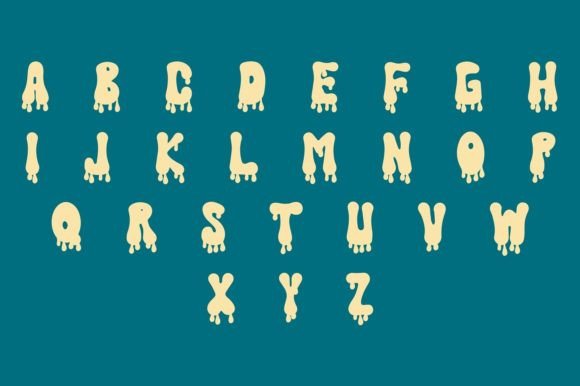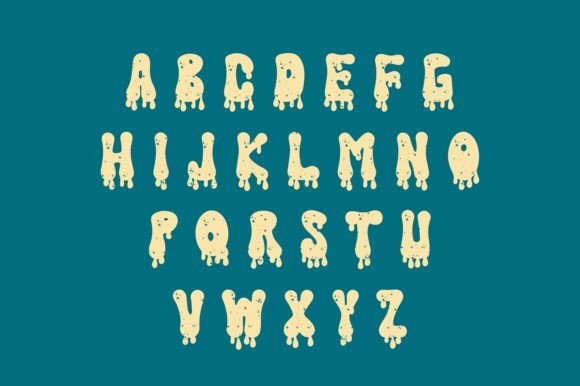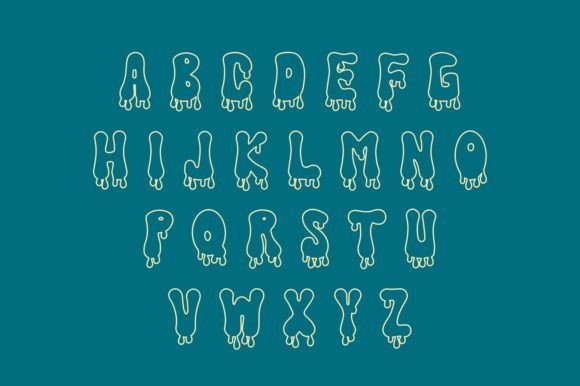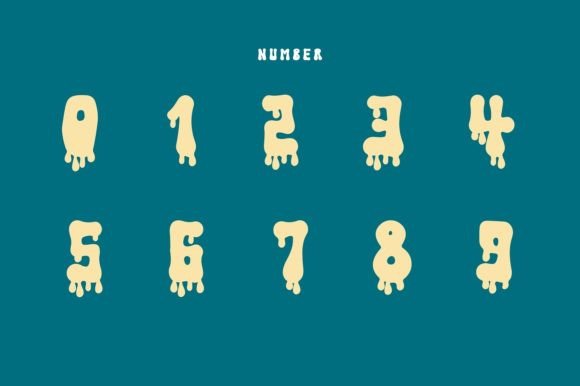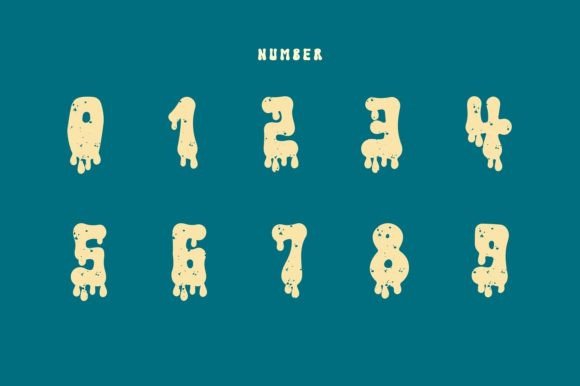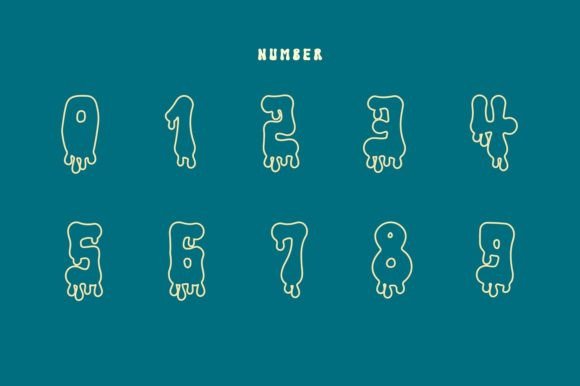
Drip Groovy Font: Add a Retro Touch to Your Designs
Are you looking for a font that can add a playful and authentic touch to your designs? Look no further than the Drip Groovy font! This retro and fun decorative font is perfect for a wide range of projects, from blog posts and logos to branding, ads, invitations, greeting cards, planners, photo albums, and decorations.
What is Drip Groovy Font?
Drip Groovy is a unique and eye-catching font that is sure to make your designs stand out. Its retro style and fun design make it perfect for anyone looking to add a touch of playfulness and authenticity to their work. Whether you’re a designer, crafter, or DIY enthusiast, this font is sure to inspire your creativity.
Key Features of Drip Groovy Font
- Retro and Fun Design: The Drip Groovy font has a distinctive retro style that is sure to grab attention.
- Playful and Authentic: This font embodies playfulness and authenticity, making it perfect for a wide range of projects.
- Versatile: The Drip Groovy font can be used for various projects, including blog posts, logos, branding, ads, invitations, greeting cards, planners, photo albums, and decorations.
Uses of Drip Groovy Font
The Drip Groovy font is perfect for a wide range of projects, including:
- Blog Posts: Add a touch of playfulness and authenticity to your blog posts with this unique font.
- Logos and Branding: Create a memorable logo and brand identity with the Drip Groovy font.
- Ads and Marketing Materials: Grab attention with this eye-catching font in your ads and marketing materials.
- Invitations and Greeting Cards: Add a personal touch to your invitations and greeting cards with this fun and playful font.
- Planners and Photo Albums: Create a unique and personalized planner or photo album with the Drip Groovy font.
- Decorations: Use this font to create fun and playful decorations for parties, events, or everyday use.
Benefits of Using Drip Groovy Font
Using the Drip Groovy font in your designs offers several benefits, including:
- Unique and Eye-Catching: This font is sure to grab attention and make your designs stand out.
- Playful and Authentic: The Drip Groovy font adds a touch of playfulness and authenticity to your designs.
- Versatile: This font can be used for a wide range of projects, making it a great addition to your design toolkit.
Tips for Using Drip Groovy Font
Here are some tips for using the Drip Groovy font in your designs:
- Experiment with Different Sizes and Colors: Try out different sizes and colors to see what works best for your design.
- Pair with Other Fonts: Pair the Drip Groovy font with other fonts to create a unique and interesting design.
- Use for Headings and Titles: Use this font for headings and titles to add a touch of playfulness and authenticity.
- Have Fun: Don’t be afraid to experiment and have fun with the Drip Groovy font!
The Drip Groovy font is a unique and eye-catching font that is perfect for designers and crafters looking to add a touch of playfulness and authenticity to their designs. With its retro style and fun design, this font is sure to make your designs stand out. Whether you’re working on a blog post, logo, branding, ad, invitation, greeting card, planner, photo album, or decoration, the Drip Groovy font is a great choice. So why not give it a try and see the amazing results for yourself?